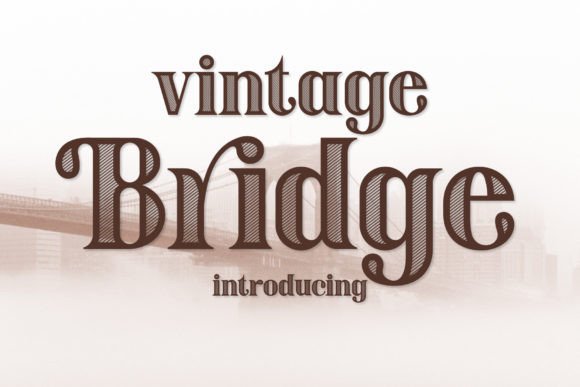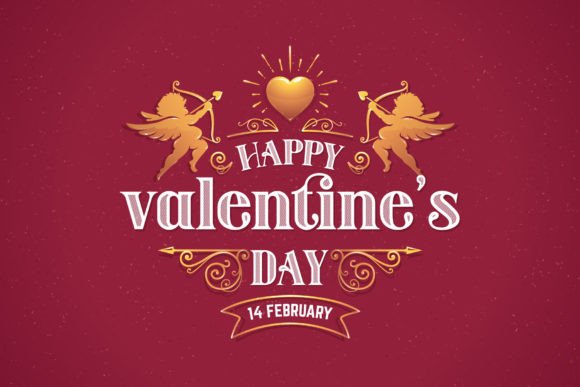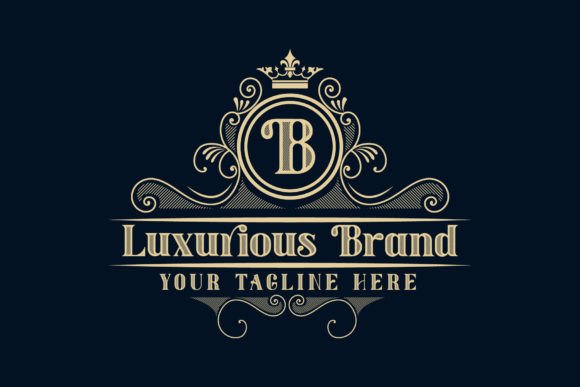
About Vintage Bridge
Designed to be versatile, the Vintage Bridge font is a great choice for any type of project. Compatible with both modern and vintage design styles. You can use it for various projects, such as blog posts, logos, branding, ads, invitations, greeting cards, planners, photo albums, decorations, and much more.